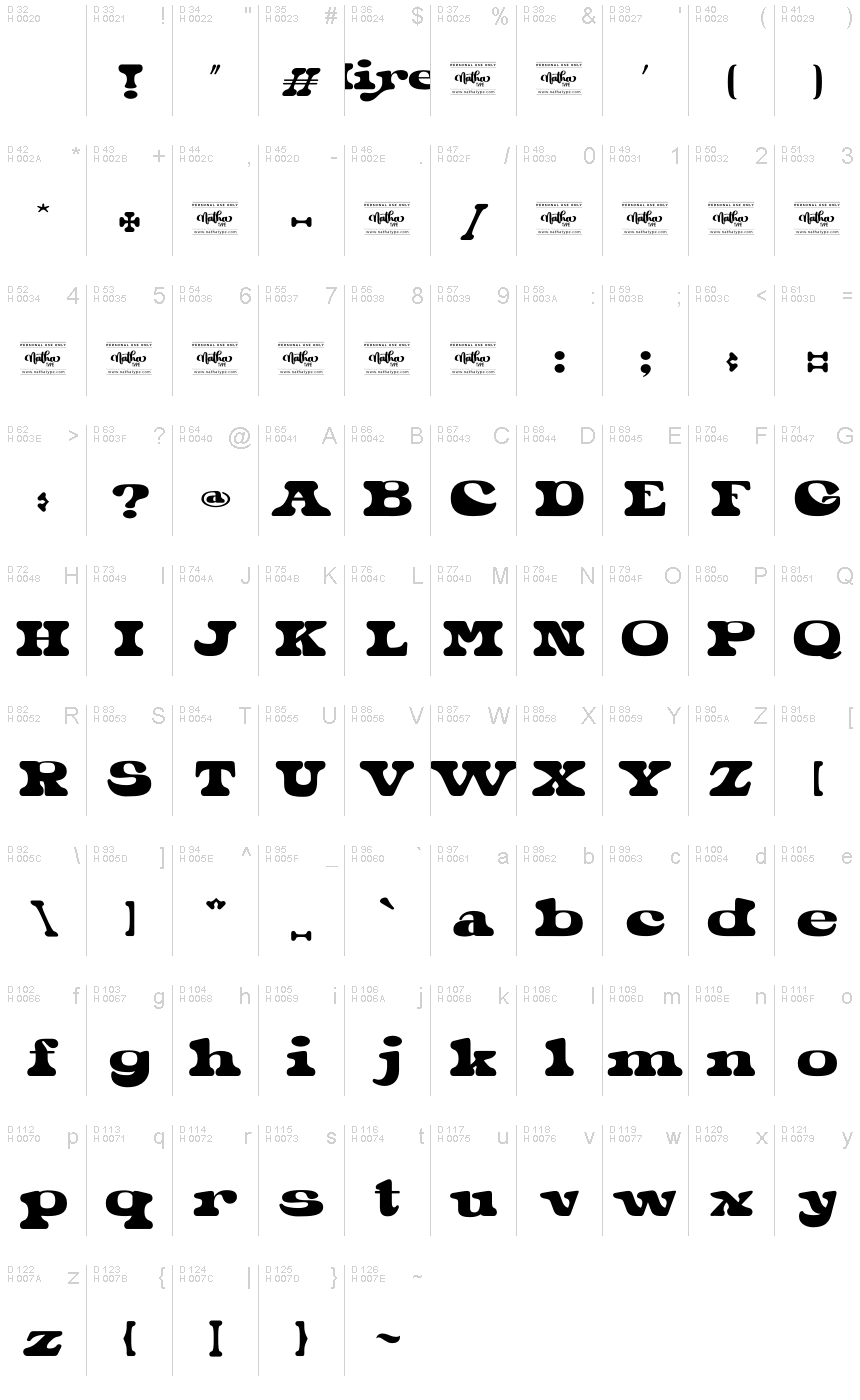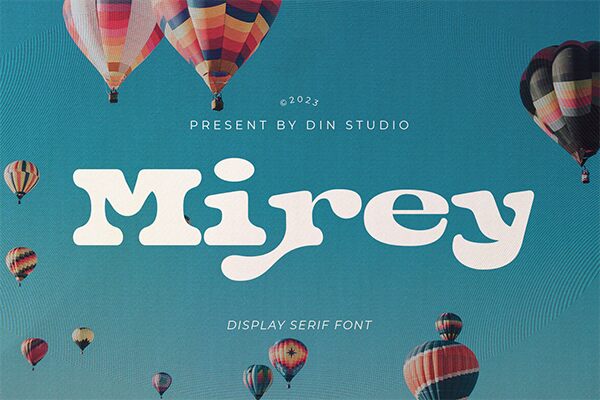
Mirey font by Nathatype oozes a groovy retro decorative look. Letters combine smooth expanded powerful curves, which create an informal playful visual that attracts and communicates in a friendly tone. This chunky bold font is a great display typography solution to titles that seek the pleasant informal aesthetic it can deliver.
Mirey can be freely used in all sorts of branding visuals, posters, packaging, merchandise design ideas, signage and wayfinding systems and other personal to corporate print projects. The eye-pleasing typeface will also work well in plenty of digital design projects such as web articles, blog posts or ads on social media.